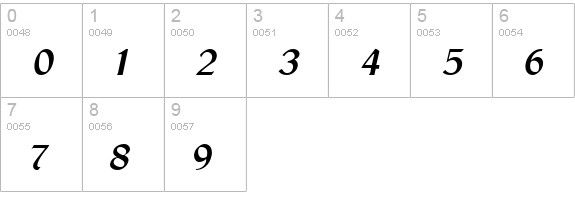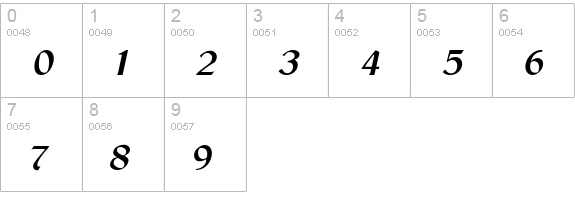
Gaelic Italic Font Details
Gaelic Italic is a distinctive, italic variant in the Gaelic typeface family \xE2\x80\x94 well suited to design and typography projects.
Introducing Gaelic Italic, a stunning font that embodies the ancient beauty and rich cultural heritage of the Gaelic language. This exquisite typeface gracefully combines traditional Celtic influences with a modern twist, resulting in a harmonious balance between elegance and functionality. With its flowing curves and delicate strokes, Gaelic Italic captures the essence of Gaelic calligraphy, adding a touch of sophistication to any design project. Its slanted and italicized form adds a dynamic and expressive quality, making it perfect for emphasis and conveying a sense of movement. One of the most remarkable aspects of Gaelic Italic is that it is free! You read that right – this captivating font is freely available for download at FontsMarket.com. Whether you are a designer, a writer, or simply someone who appreciates the beauty of typography, Gaelic Italic offers you the opportunity to unleash your creativity without any cost. This font is not just visually appealing; it is also highly versatile. From invitations and wedding stationery to branding materials and digital artwork, Gaelic Italic effortlessly adapts to various design purposes. Its legibility and readability make it suitable for both large display headlines and smaller body text, ensuring that your message is effectively communicated with style and clarity. So, why wait? Download Gaelic Italic today from FontsMarket.com and experience the enchanting allure of this remarkable font. Let its timeless elegance elevate your designs to new heights, while enjoying the freedom of creating without any financial constraints. Embrace the beauty of Gaelic Italic and let your imagination soar.